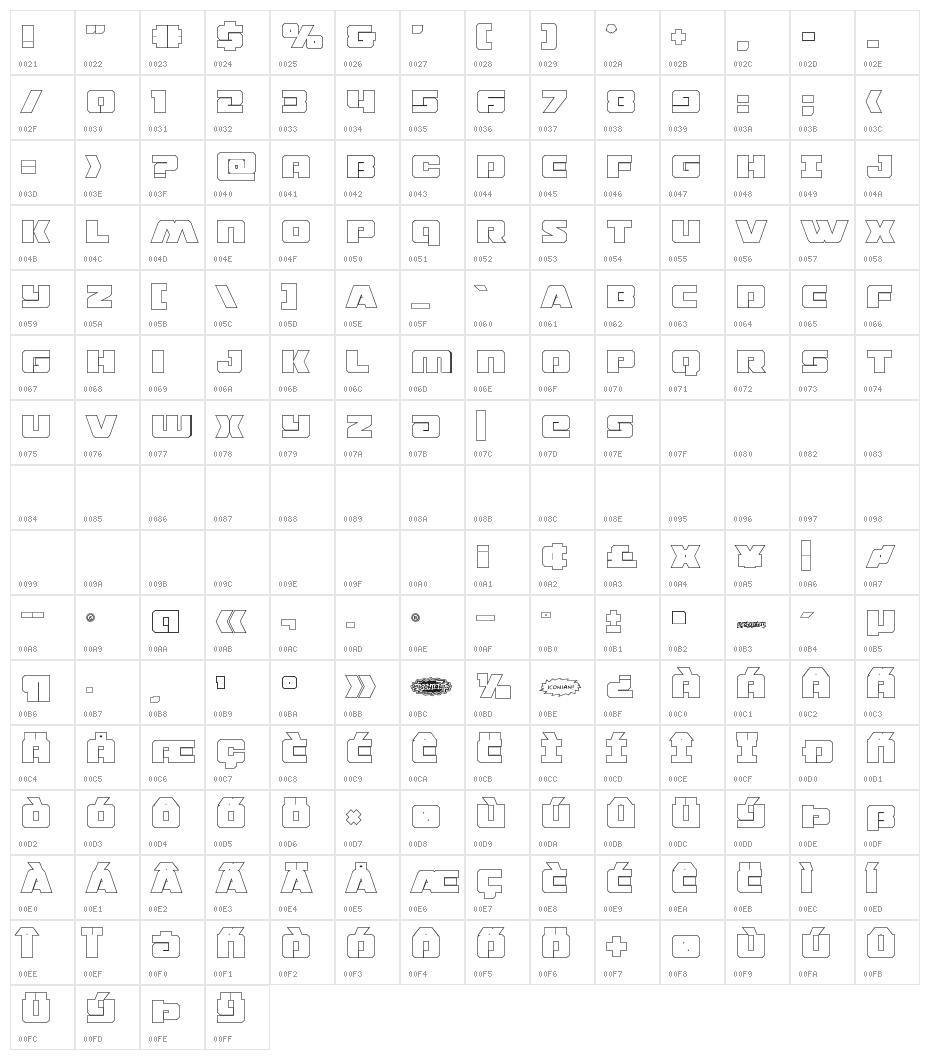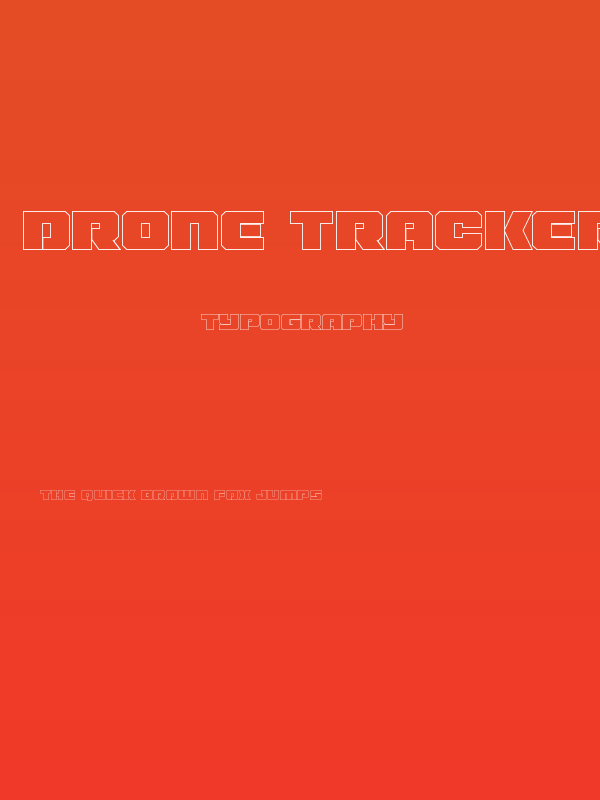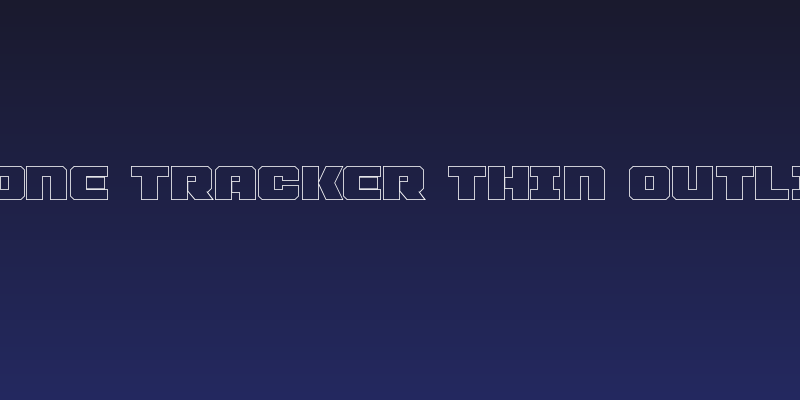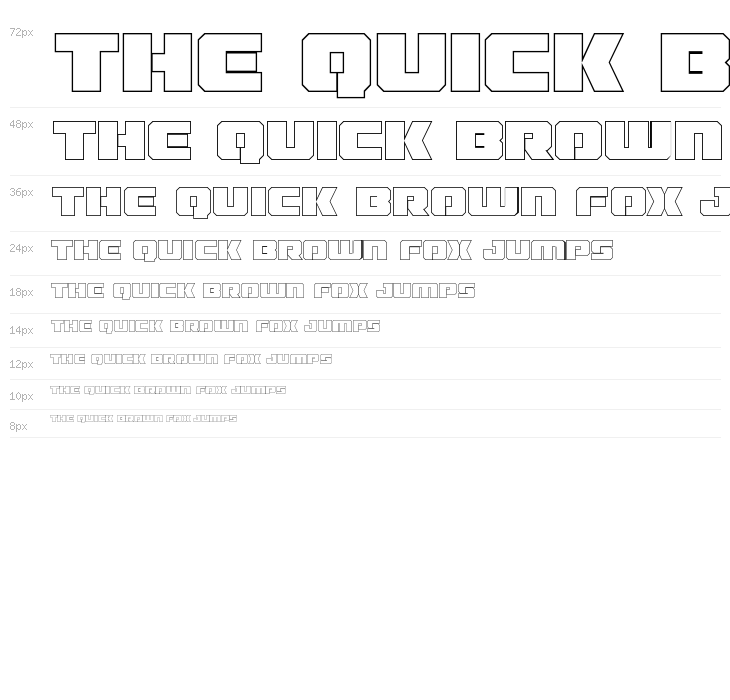
Drone Tracker Thin Outline Font
Drone Tracker Thin Outline Description
This font features a futuristic and geometric design with thin outlines that create a striking visual impact. The characters are constructed with angular, block-like shapes that give a sense of modernity and technological advancement. The uppercase and lowercase letters maintain a consistent style, emphasizing sharp edges and uniformity. Numbers and special characters follow the same design principles, ensuring a cohesive look across all elements. The font's outline nature allows for creative layering and color applications, making it versatile for various design projects.
| Proposed Projects | Ideal for technology branding, sci-fi themed designs, video game interfaces, and modern posters. |